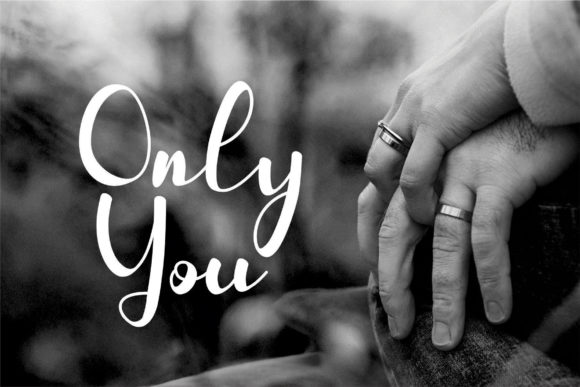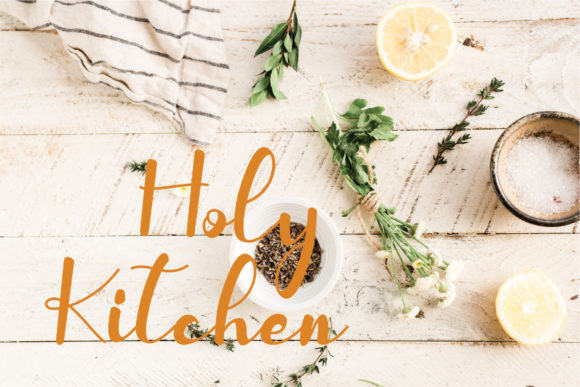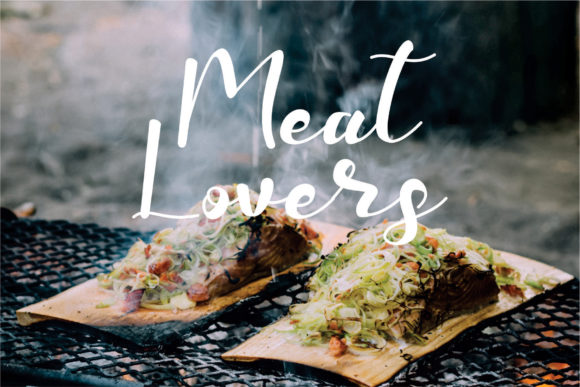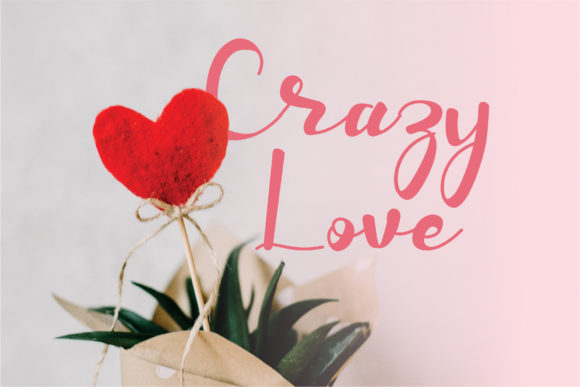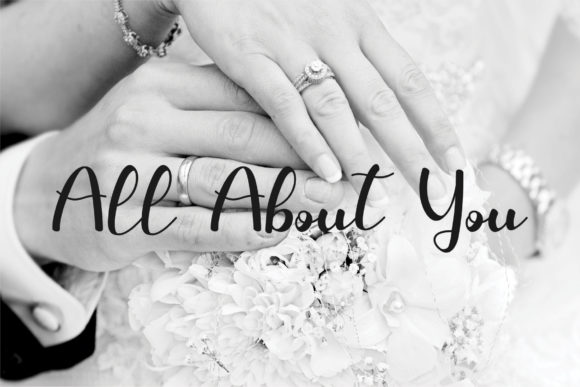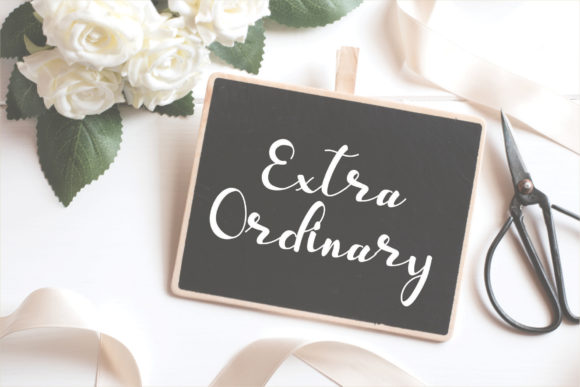
The Timeless Elegance of Belova Font: A Designer’s Delight
I’ll never forget the time I was working on a wedding invitation project, and my client asked me to create something that exuded romance and sophistication. I scoured the internet for the perfect font, and that’s when I stumbled upon Belova. This beautiful script font has since become a staple in my design toolkit, and I’m excited to share its wonders with you! 😊
A Personal Review of Belova Font
What I Love About Belova ✨
• 💫 Timeless and delicate design that works perfectly for romantic and elegant projects
• ✅ Multilingual support, making it perfect for global designs
• 🔥 Beautiful ligatures, uppercases, and lowercases that add a touch of sophistication
• 🎨 Highly versatile and can be used for a wide range of projects, from greeting cards to logos and more
While Belova is an amazing font, there are a few things to keep in mind:
• 🤔 Some users might find the font a bit too delicate for certain projects, so it’s essential to test it with your design
• ⚠️ As with any script font, it can be a bit challenging to read at smaller sizes, so use it wisely
The Story Behind Belova Font
Belova was designed with love and care by a talented font designer who wanted to create a timeless and elegant script font. The designer’s inspiration came from traditional calligraphy and handwriting, with a focus on creating a font that would be both beautiful and versatile.
Q: What is the best way to use Belova font?
A: Belova is perfect for creating romantic and elegant designs, such as wedding invitations, greeting cards, and logos.
Q: Is Belova font suitable for body text?
A: While Belova is a beautiful font, it’s best used for headings and titles. For body text, you might want to choose a more readable font.